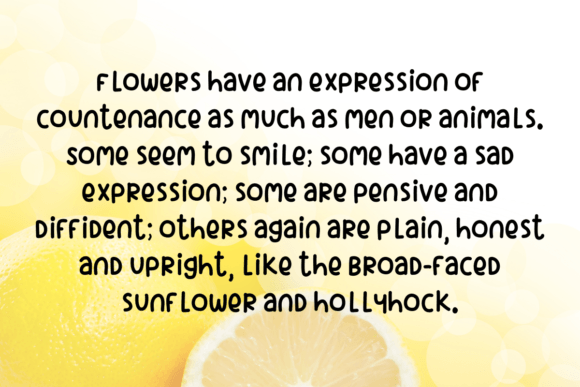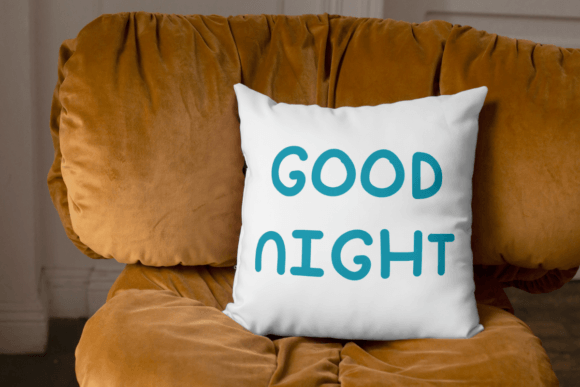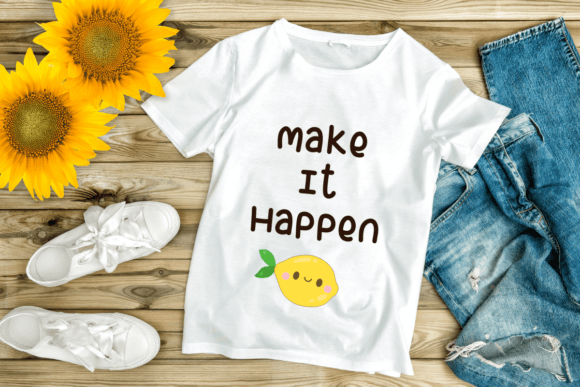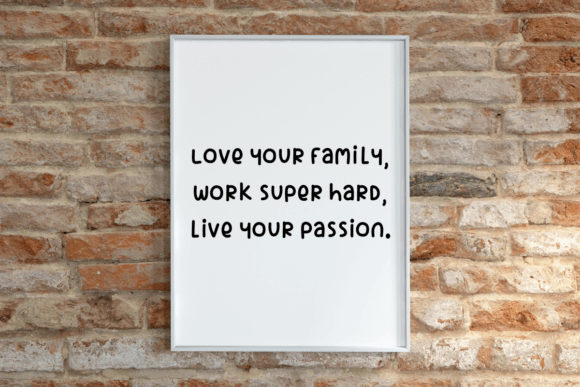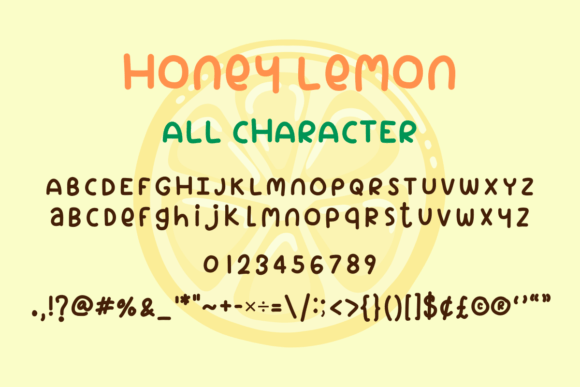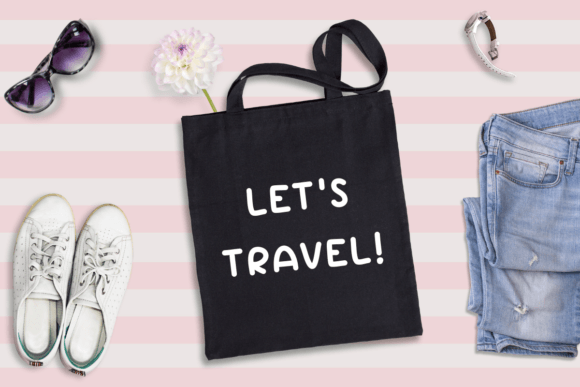
Introduction to Honey Lemon Font
Remember the excitement of designing a project for a loved one, whether it’s a birthday card for a child or a graduation announcement for a family member? As a designer, you understand the importance of choosing the right font to convey your message and evoke the right emotions. This is where the Honey Lemon Font comes in – a delightful, high-quality handwritten font that’s perfect for creative projects.
With its friendly and approachable vibe, the Honey Lemon Font is an excellent choice for designers looking to add a personal touch to their designs. Its transparent background makes it easy to work with, and its free download option makes it an accessible design resource for anyone. Whether you’re working on a school project, a poster, or a t-shirt design, this font is sure to bring a smile to your face and make your project stand out.
Key Features of Honey Lemon Font
- High-quality, unique design for creative projects
- Transparent background for seamless integration into various designs
- Resolution-independent design, ensuring crisp and clear display across different devices
- Perfect for designers, artists, and anyone looking for a modern, stylish font
Honest Review: Honey Lemon Font
As a designer, I’m always on the lookout for high-quality fonts that can elevate my creative projects. The Honey Lemon Font is one such find that has caught my attention. This font is a perfect blend of modern and playful, making it an ideal choice for any design project.
- ✨ The transparent background allows for seamless integration with any design element, giving it a clean and modern look.
- ✨ The font is highly versatile, suitable for a wide range of creative projects, from branding to editorial design.
- ⚠️ The font may not be suitable for projects that require a more formal or serious tone, as its playful nature may detract from the overall message.
Overall, I’m impressed with the Honey Lemon Font. Its unique blend of modern and playful elements makes it a valuable addition to any designer’s toolkit. While it may have some limitations, its free download and high-quality design make it a worthwhile resource for any creative project.
For getting the most out of Honey Lemon Font, use it for creating visually appealing designs that stand out from the crowd. Common use cases include creating social media graphics, posters, and presentations for your creative project or design resource collection.